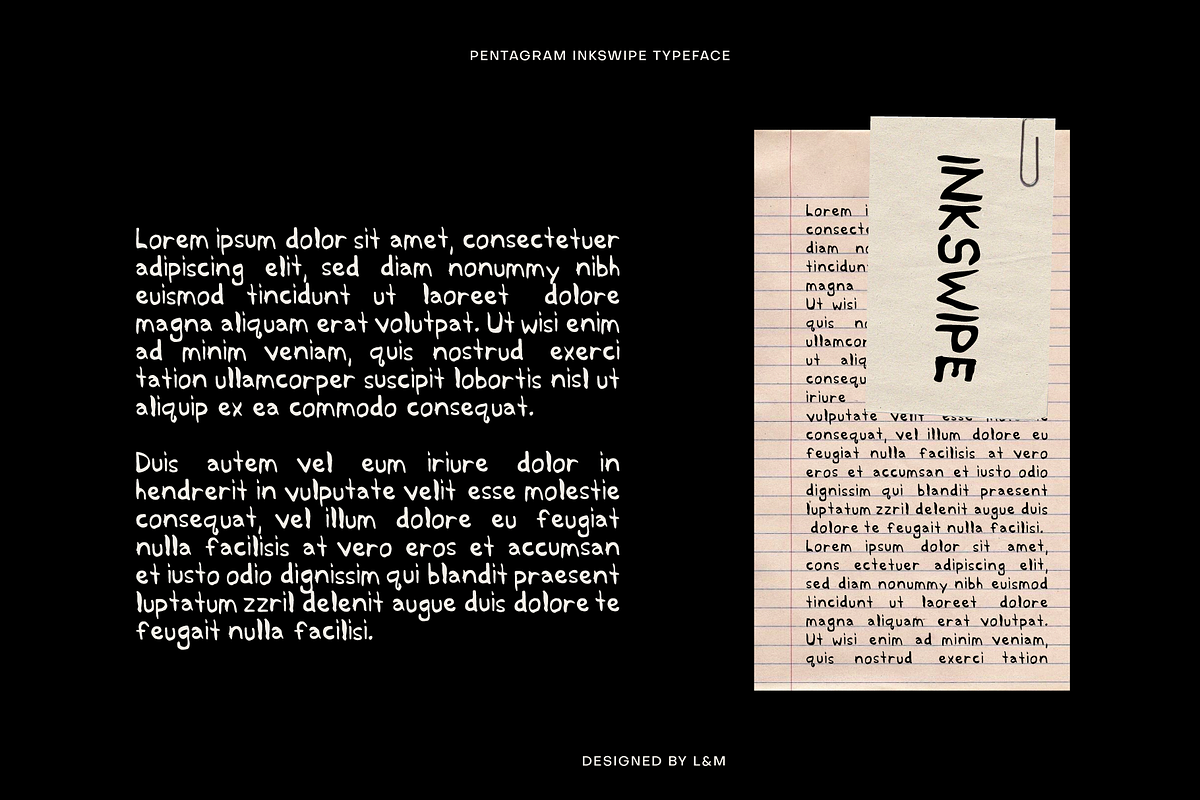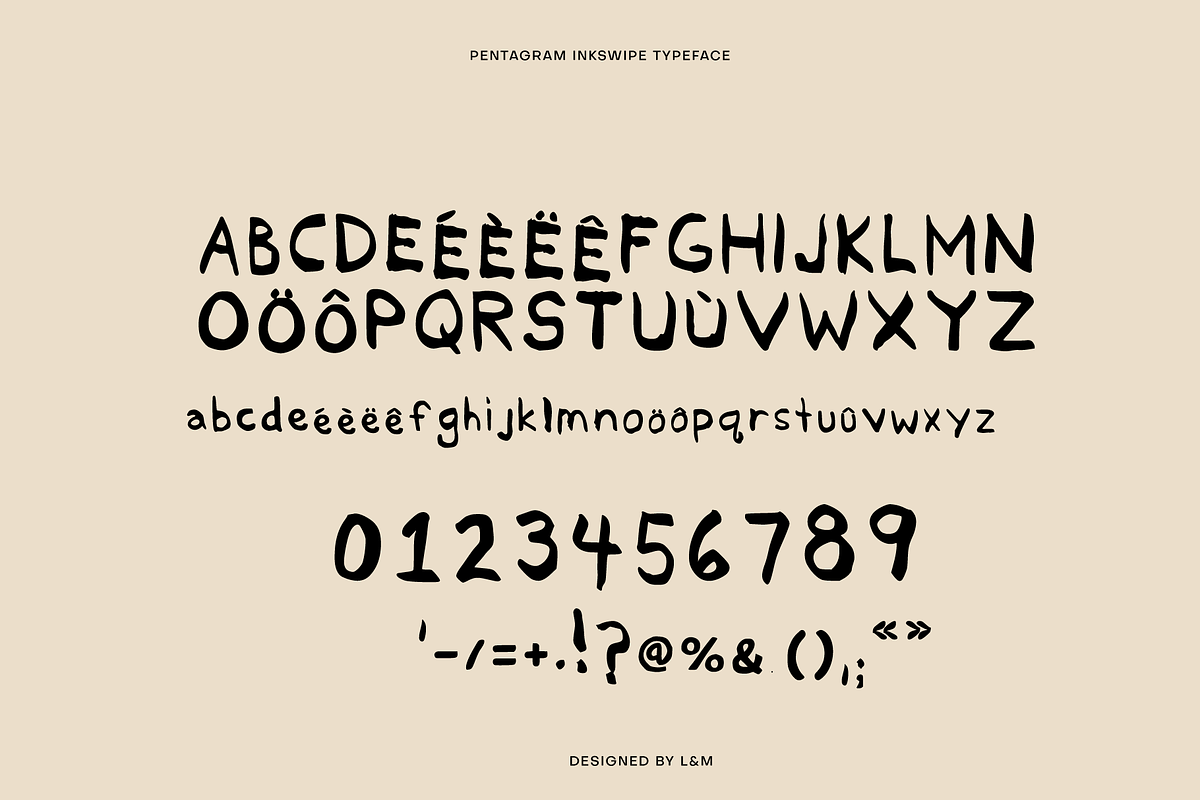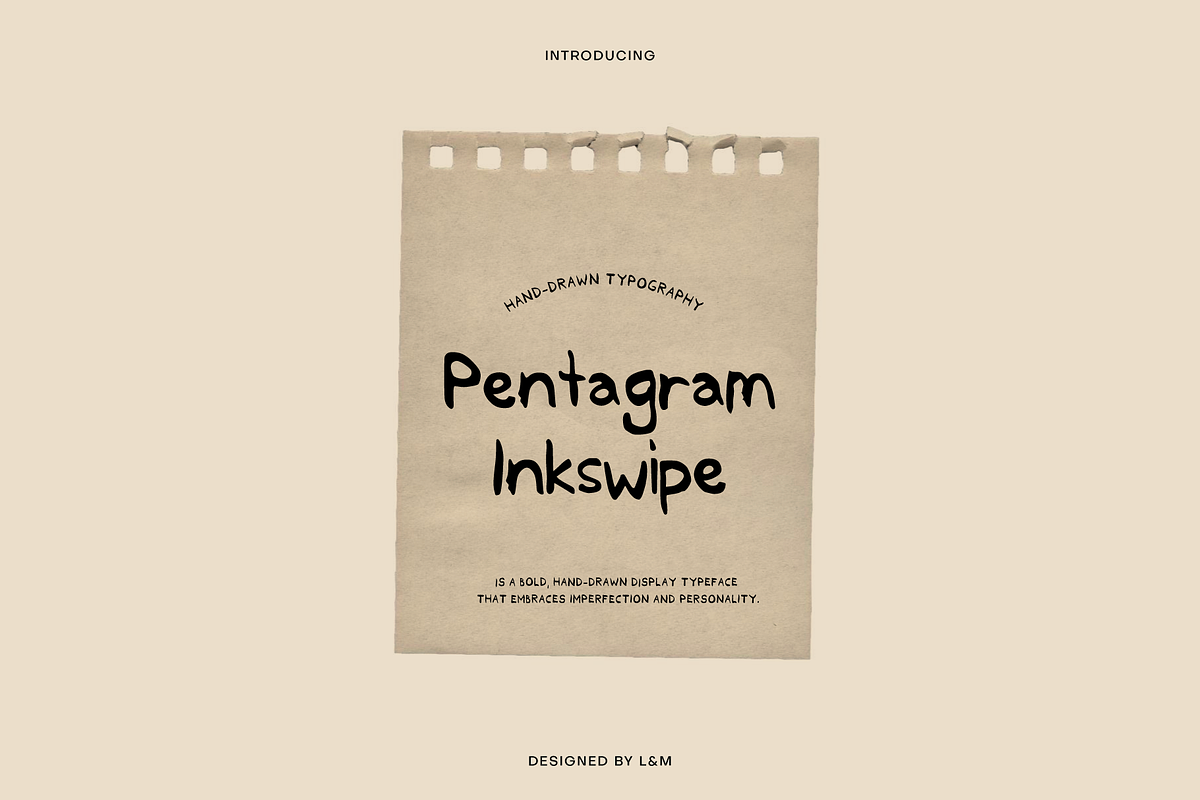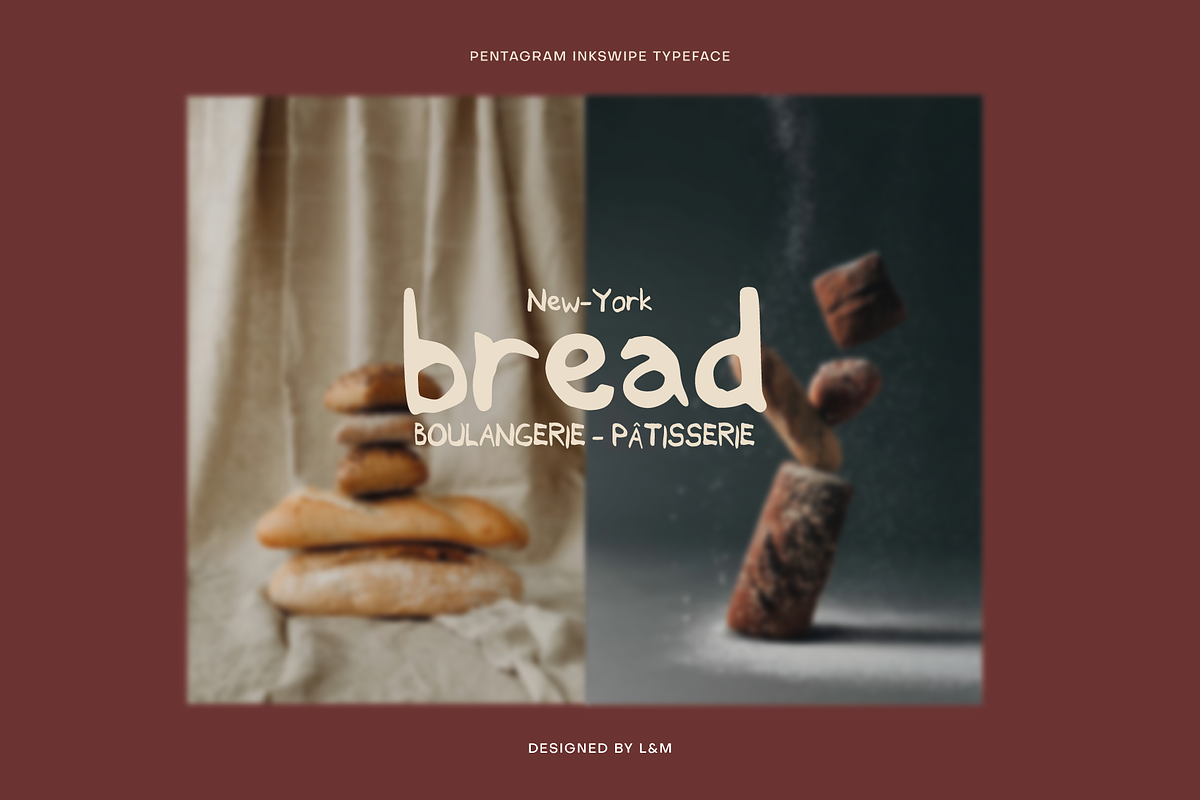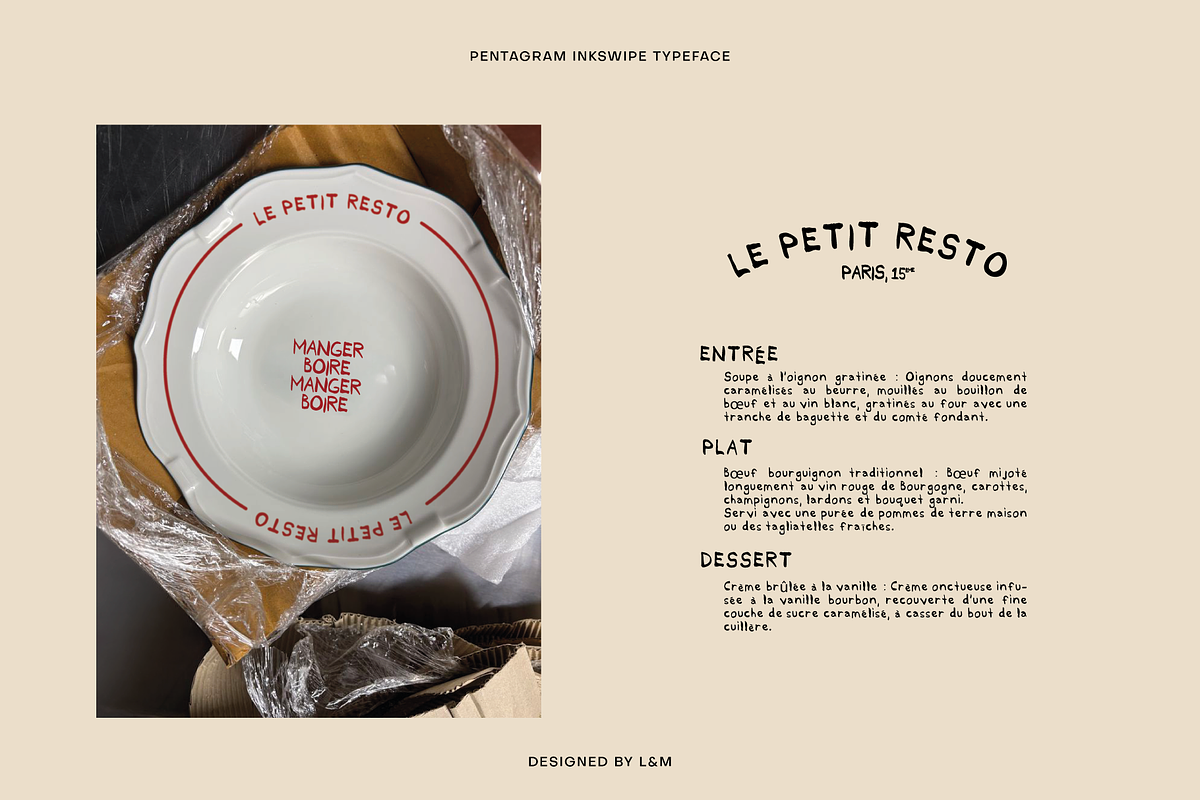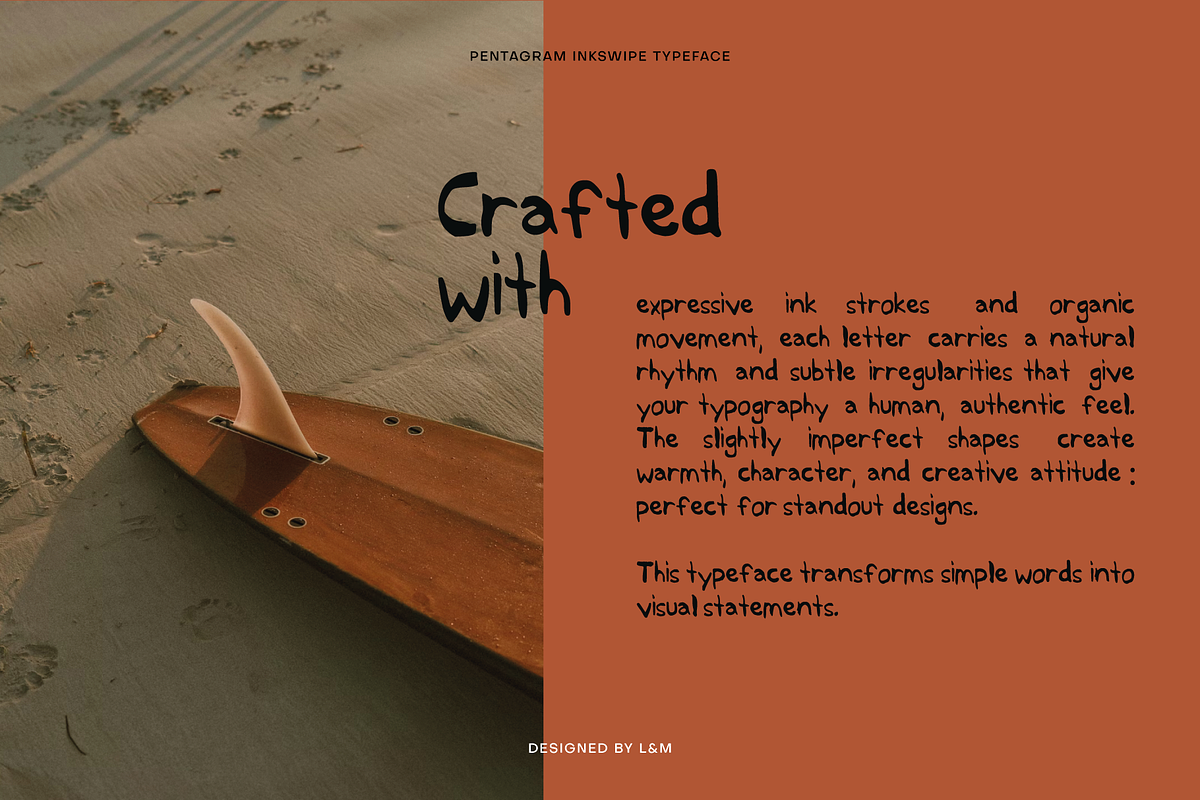
PENTAGRAM INKSWIPE
Pentagram Inkswipe is a bold, hand-drawn display typeface that embraces imperfection and personality.
If you’re looking for a typeface that stands out and adds personality instantly, Pentagram Inkswipe is made for you.Crafted with expressive ink strokes and organic movement, each letter carries a natural rhythm and subtle irregularities that give your typography a human, authentic feel. The slightly imperfect shapes create warmth, character, and creative attitude, perfect for standout designs. This typeface transforms simple words into visual statement:
🎯 Perfect For :
- Bold branding projects,
- Creative logos
- Editorial headlines,
- Album covers,
- Posters & art prints .....
🔤 What’s Included :
- Uppercase A–Z
- Lowercase a–z
- Numbers 0–9
- Punctuation & symbols
- French accented character
Design Inspiration :
Inspired by ink sketches, handmade typography, creative notebooks, and contemporary DIY aesthetics. Pentagram Inkswipe captures the spontaneous energy of brush lettering while remaining highly legible and versatile.